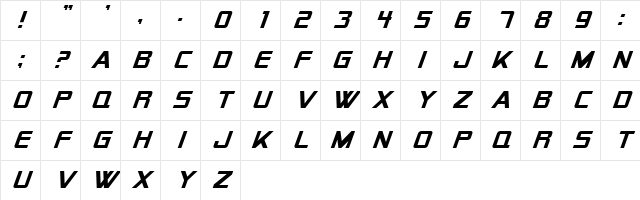
Alien Encounters Solid Italic
Complete Alien Encounters Solid Italic glyph index. Displaying only characters natively supported by Alien Encounters Solid Italic font.
Design Context for Alien Encounters Solid
Alien Encounters Solid is a composed and adaptable typeface that performs quietly and consistently across a wide range of design contexts. The slanted form adds forward momentum and visual energy.
Pro Tip: Use Alien Encounters Solid for emphasis, pull quotes, and subheadings where its slanted energy can add rhythm to the layout.